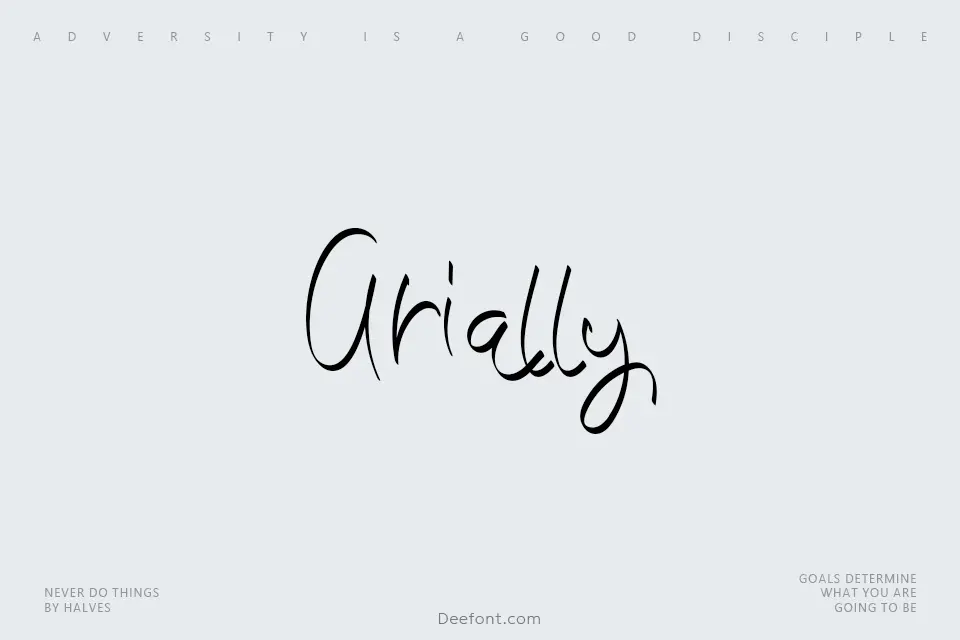
Arially Font
Arially Font is a casual yet sophisticated handwritten typeface that combines bold strokes with an elegant flow. Designed by Arliyan Creative, this script font features a natural, calligraphy-inspired style that brings a personal touch to any design. It is exceptionally versatile, making it an ideal choice for wedding invitations, stylish branding projects, product packaging, and social media graphics. The font's distinct character ensures legibility while maintaining a chic and modern aesthetic, perfect for creatives looking to add a unique flair to their work.****Please contact us at arliyancreative@gmail.com for more info on commercial use